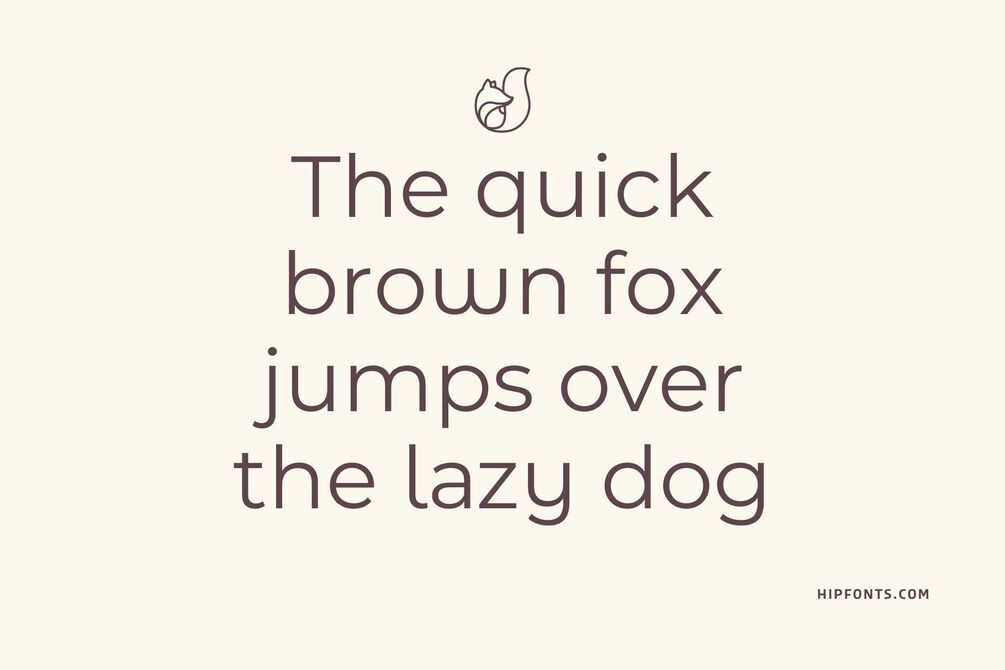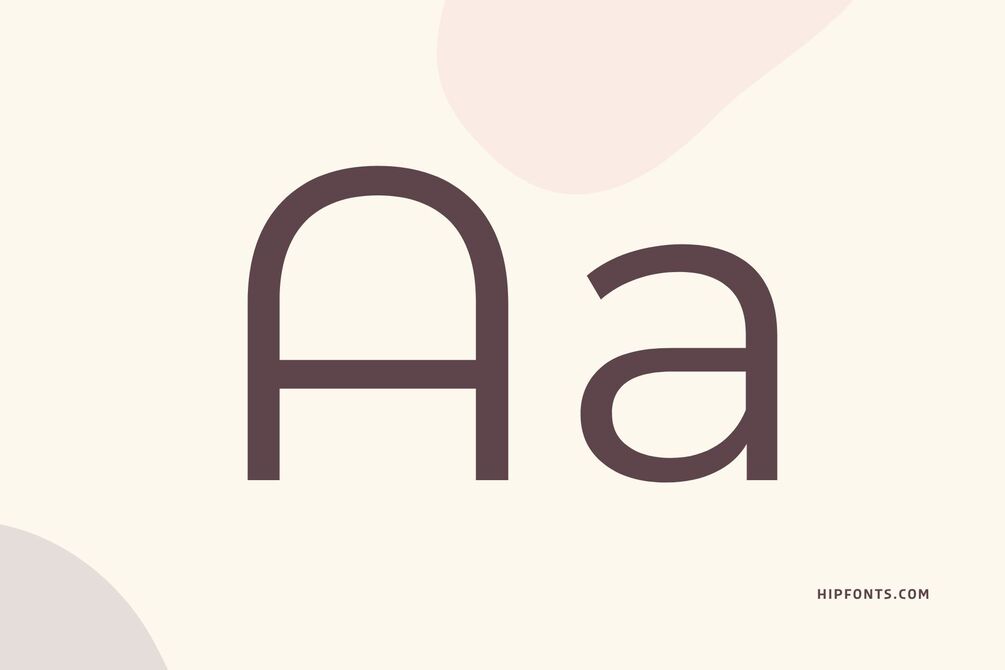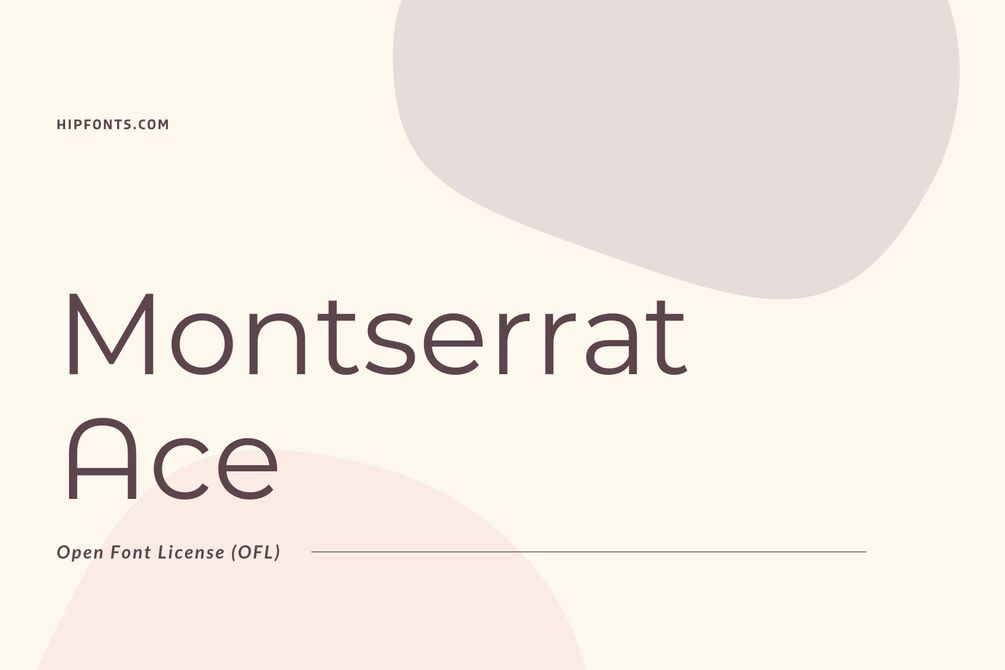
Montserrat Ace
Montserrat Ace is a stylish and versatile font that blends classic elegance with a modern twist, designed by Julieta Ulanovsky.
It draws inspiration from the original Montserrat font family but introduces unique design elements that set it apart. Montserrat Ace features refined letterforms with delicate curves and balanced proportions, exuding a sense of sophistication and contemporary aesthetics.
This font's versatility shines through its extensive range of weights and styles, offering flexibility and creativity in design compositions. From thin and delicate variations to bold and impactful styles, Montserrat Ace allows designers to create visual hierarchies and dynamic typographic layouts. Whether used in branding, editorial design, or web interfaces, Montserrat Ace brings a touch of refinement to every project.